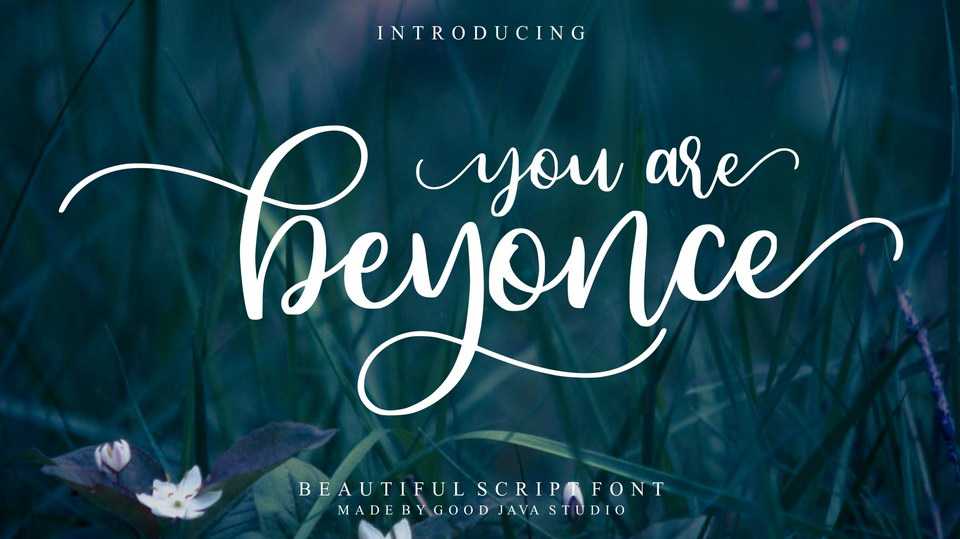
Download Beyonce font, a beautiful handwritten script with a natural and smooth flow. Beyonce script is great for logo, invitation, wedding designs, social media posts, label, photography, watermark, special events or anything.
Designer: Good Java Studio